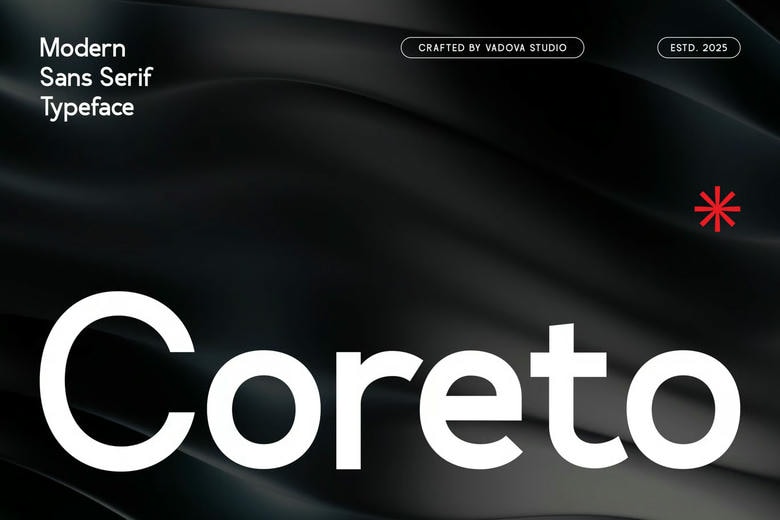
Coreto Font
Coreto is a modern sans serif typeface that exudes clarity, strength, and minimalistic sophistication. Its clean, geometric construction provides a contemporary vibe that seamlessly balances softness with bold presence, making it ideal for trend-driven and professional design needs.
The font delivers a confident and sleek impression, perfect for use in high-impact visuals across branding, digital interfaces, fashion editorials, or high-end product packaging. With its low contrast strokes and well-balanced letterforms, Coreto communicates precision and elegance without feeling cold or sterile. This refined neutrality allows it to function as both a statement typeface and a functional body text font.
Coreto Modern Sans Serif Font